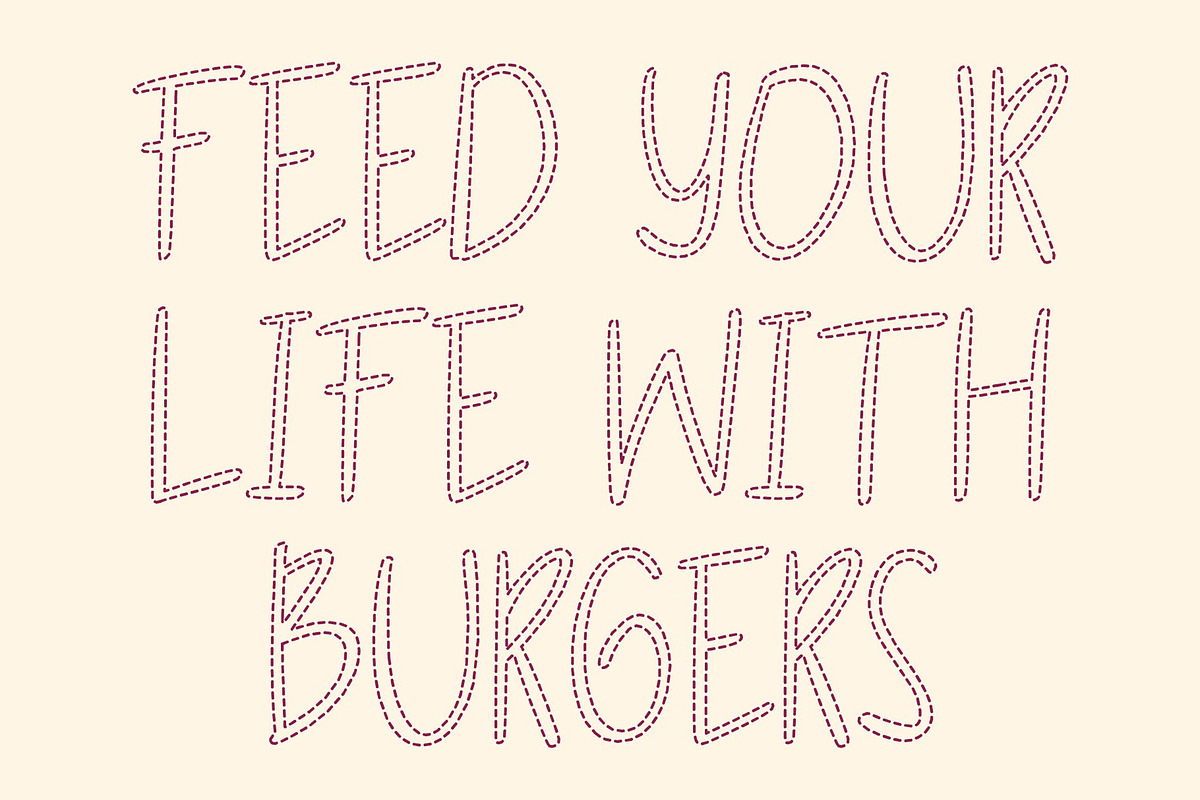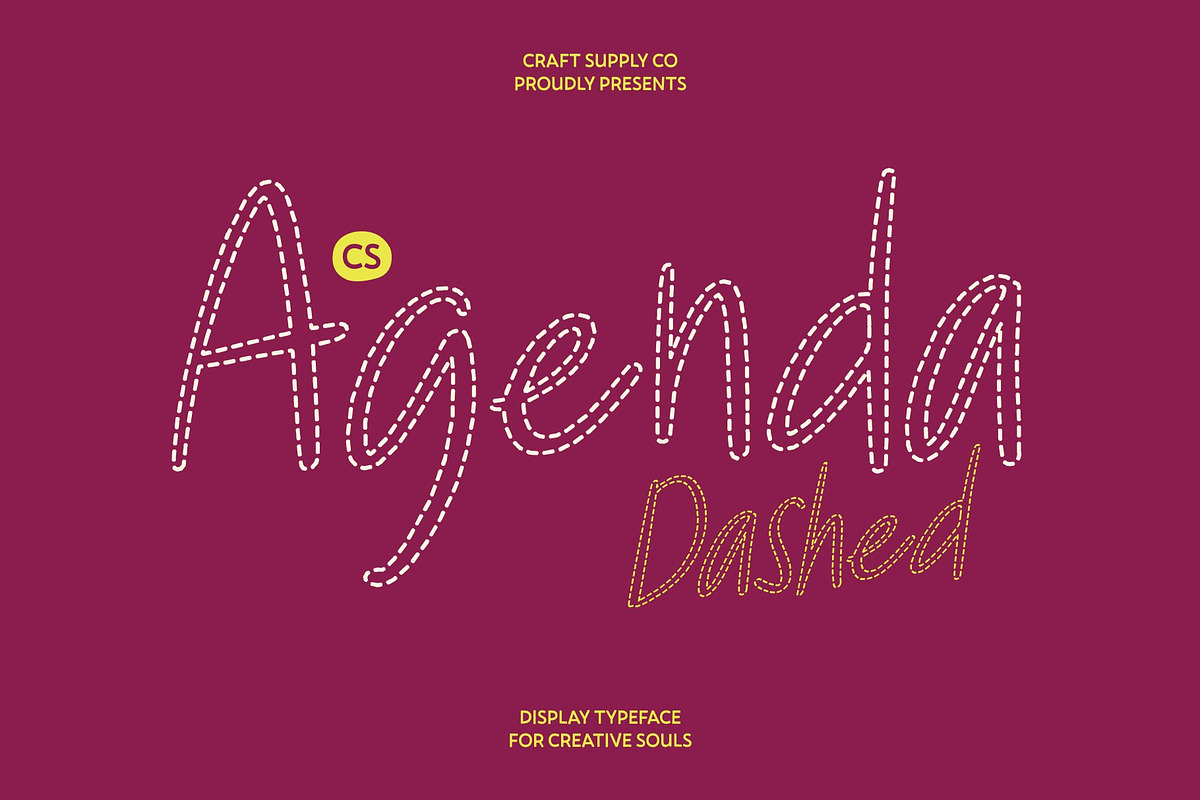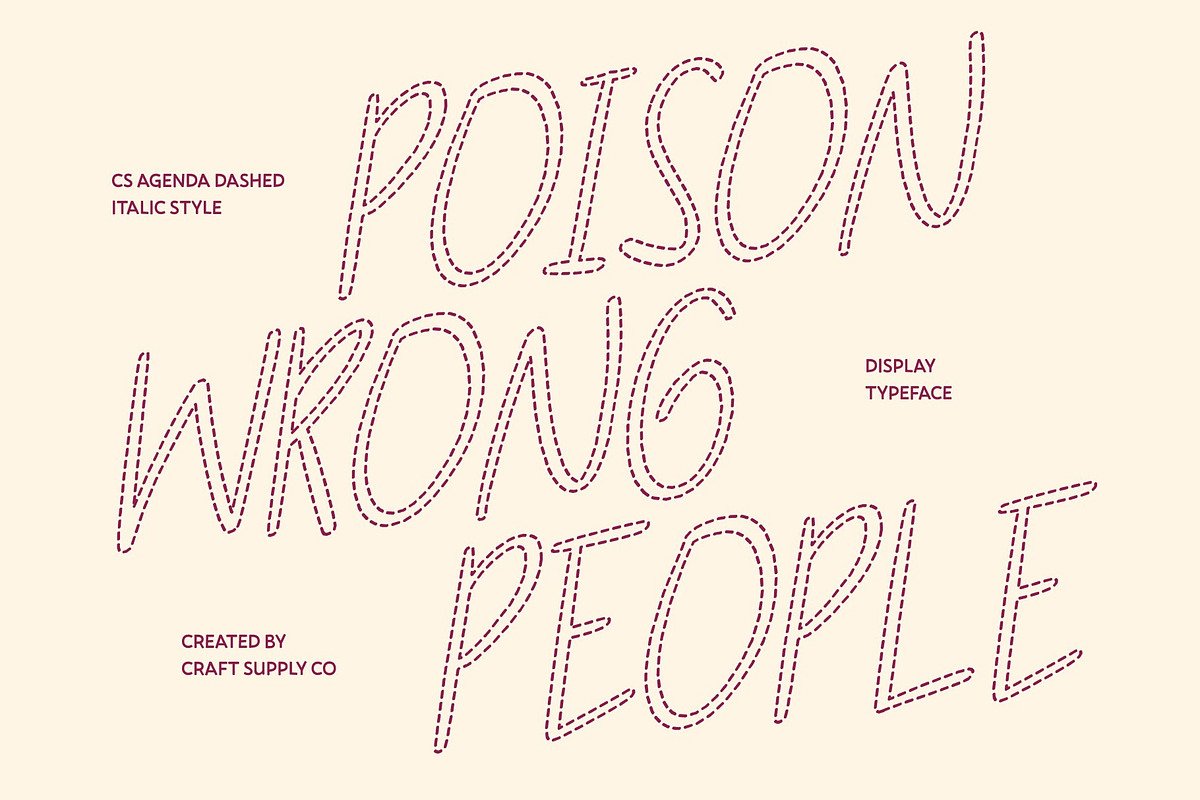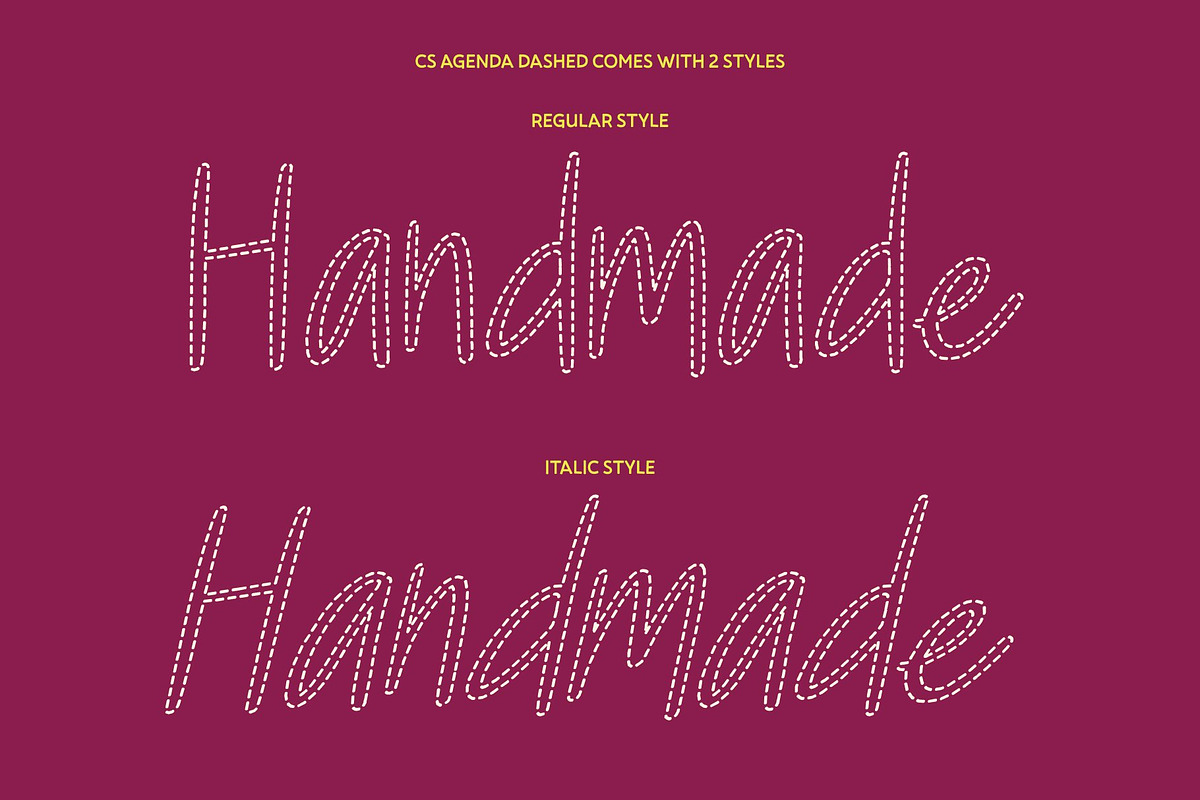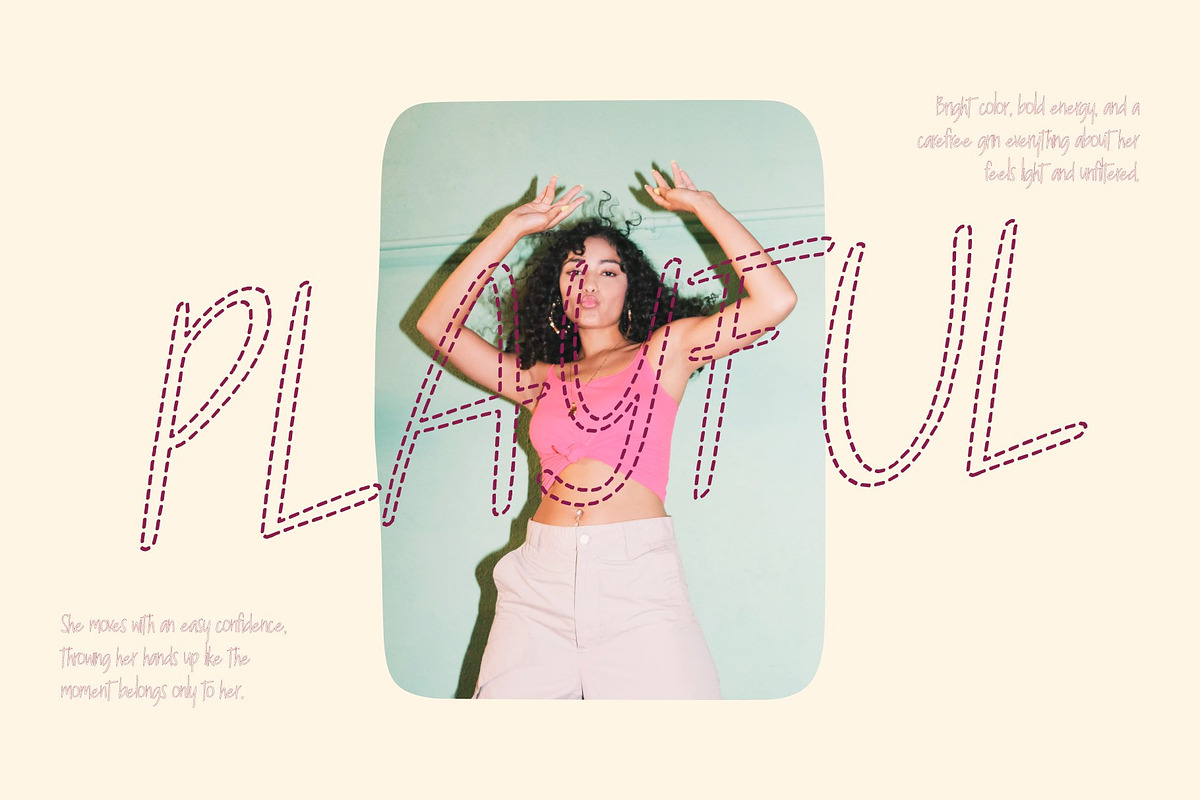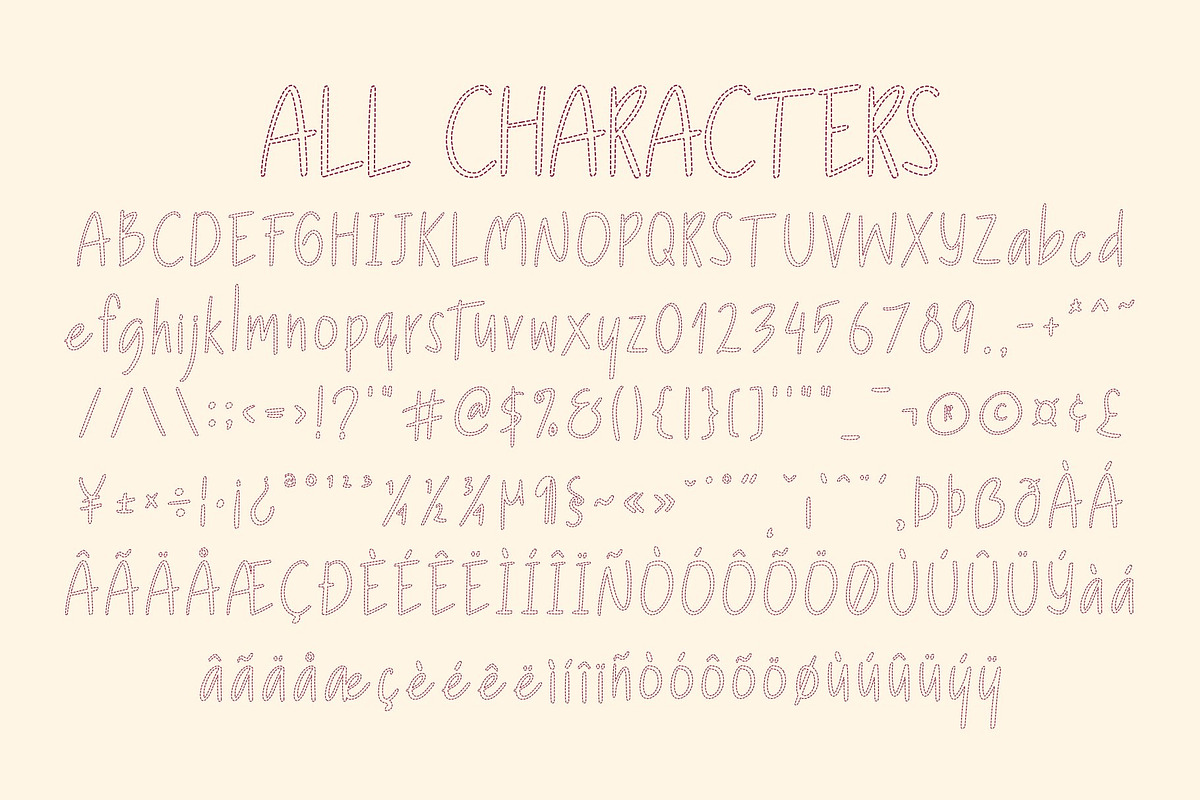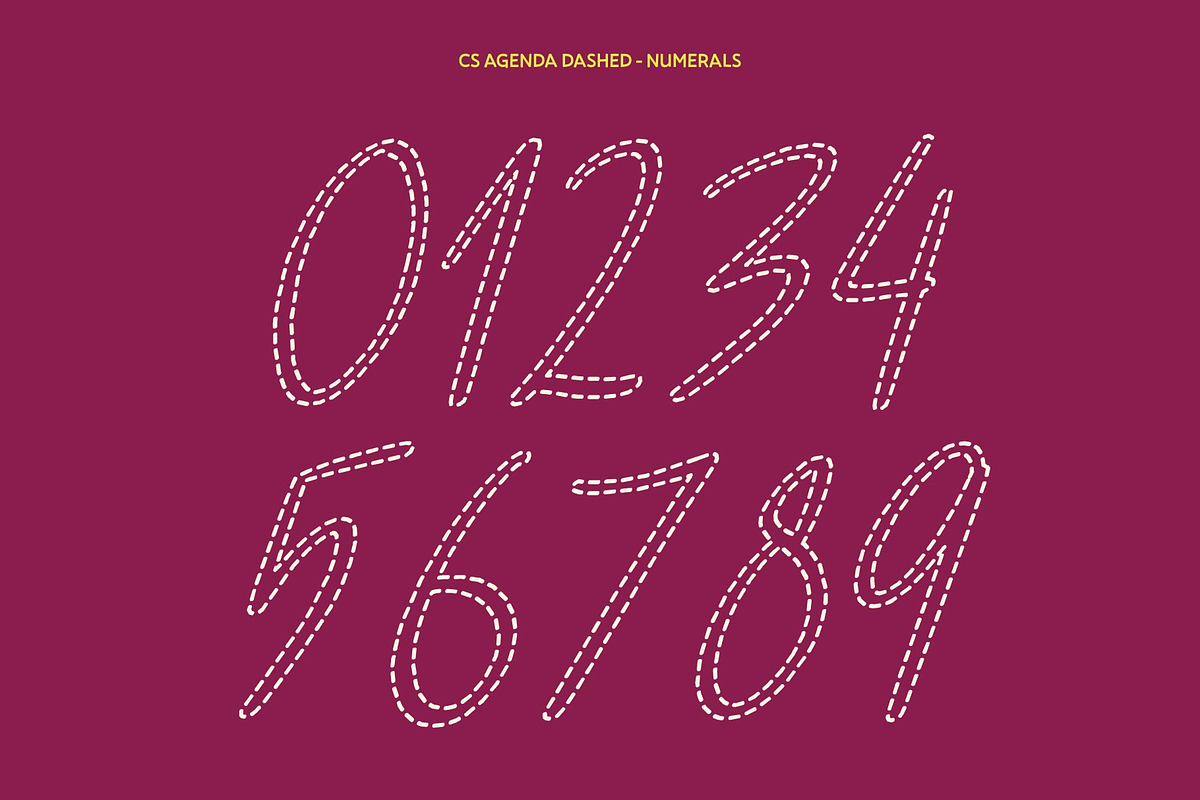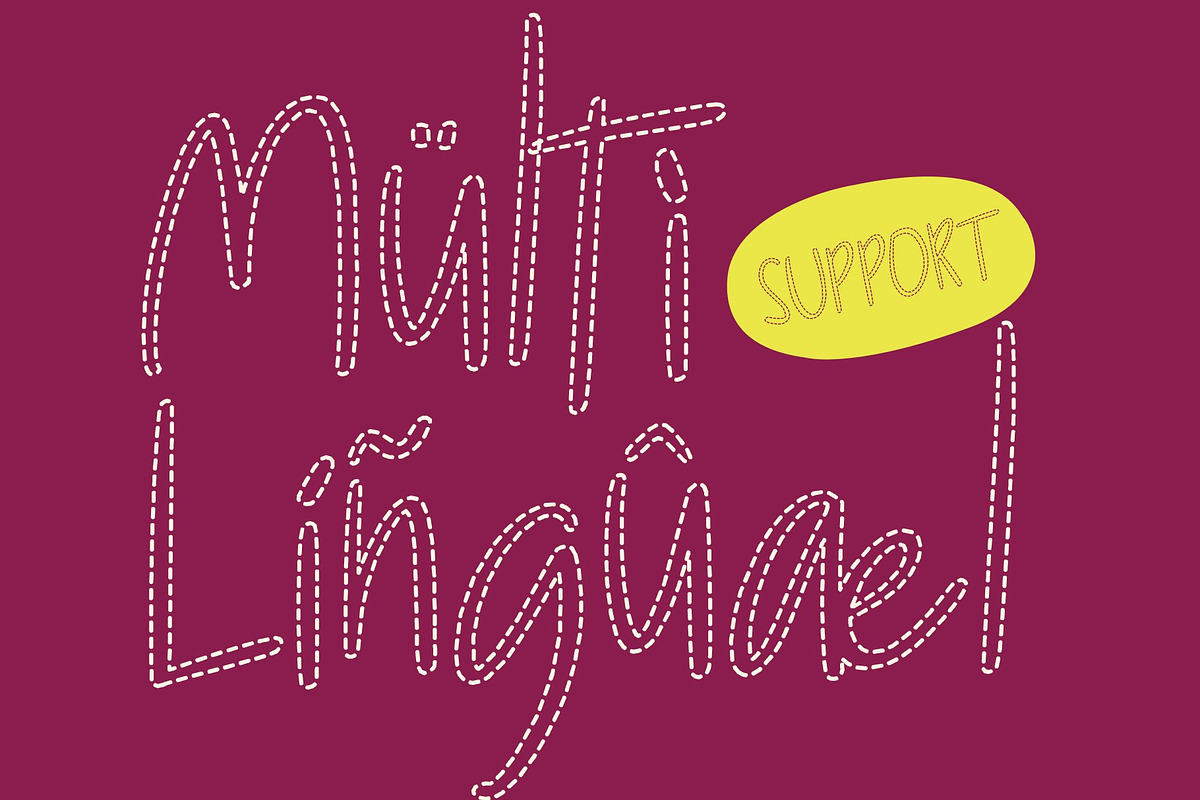
CS Agenda Dashed
CS Agenda Dashed – Handwritten Sans Font with Modern Personality: Where Handwritten Warmth Meets Sans Serif Clarity
Casual Elegance with Airy Dashed Character This blends the charm of casual handwritten strokes with the clarity of a sans serif structure. Its defining feature lies in its dashed construction each letter is formed from soft, broken segments rather than solid lines. This creates a light, breathable texture that adds warmth and personality while maintaining a clean, modern foundation.
Readable Structure with Creative Expression The sans serif framework ensures clarity and balance, while the dashed strokes introduce a subtle handcrafted feel. This combination softens the geometric structure, making the font feel approachable and human. The segmented lines add gentle rhythm and movement, enhancing visual interest without compromising readability.
Perfect for Branding and Creative Projects This is ideal for branding, packaging, posters, social media graphics, and editorial layouts. Its friendly and modern appearance makes it especially suitable for creative businesses, lifestyle brands, and projects that want to feel both professional and expressive.
Where Professionalism Meets Playful Personality By merging structured sans serif design with expressive dashed detailing, this font offers the best of both worlds. It delivers a polished, contemporary look with a relaxed and artistic edge perfect for designers seeking typography that feels clear, stylish, and full of character.